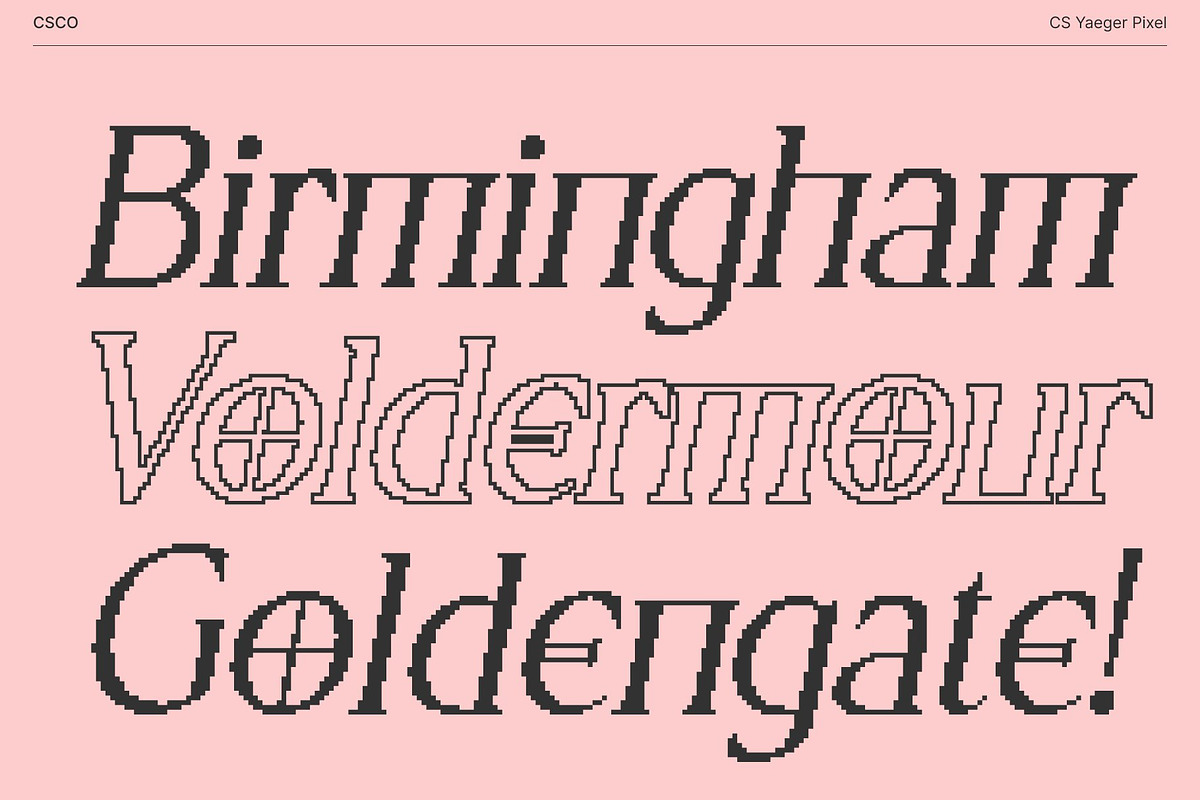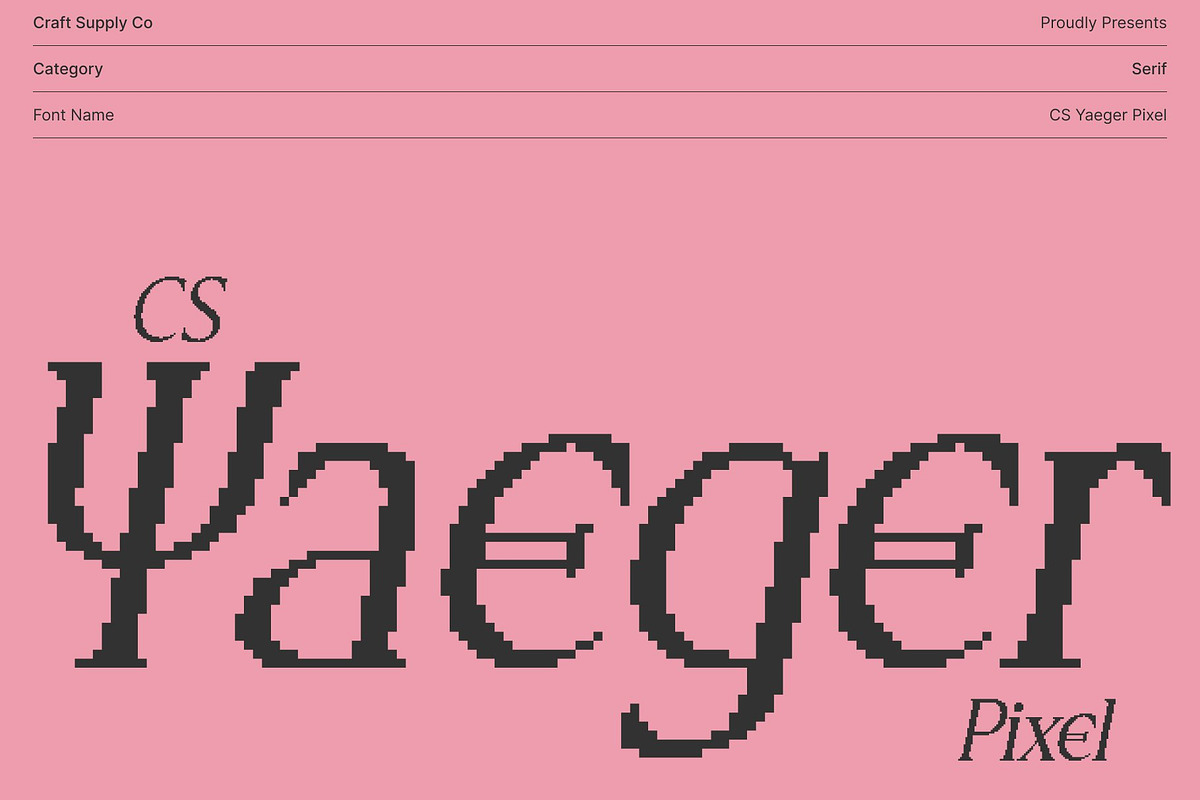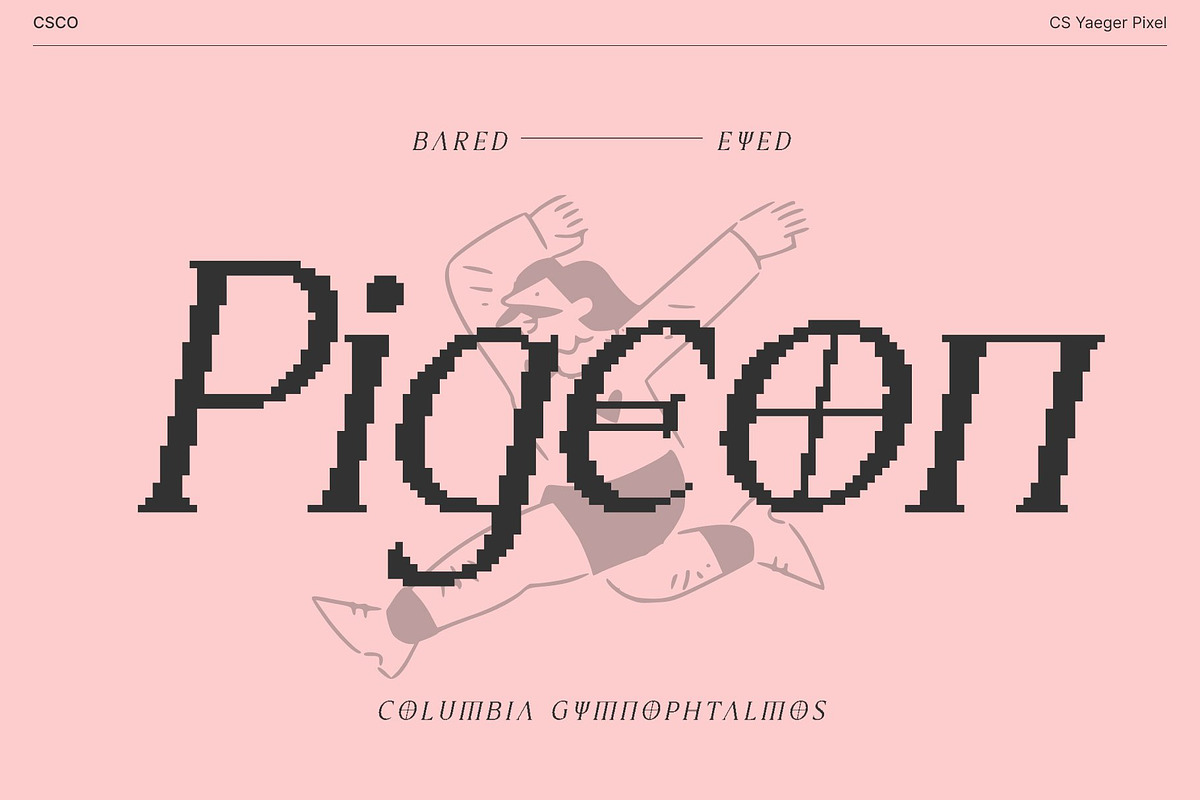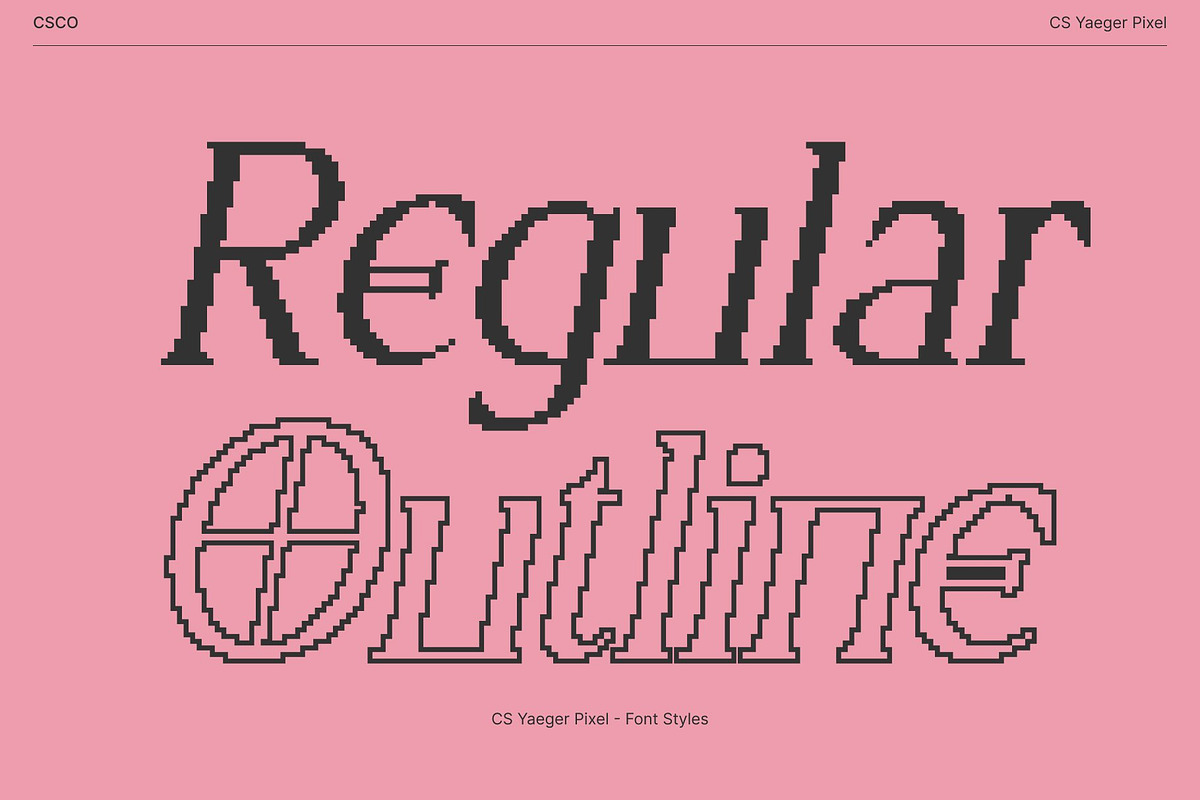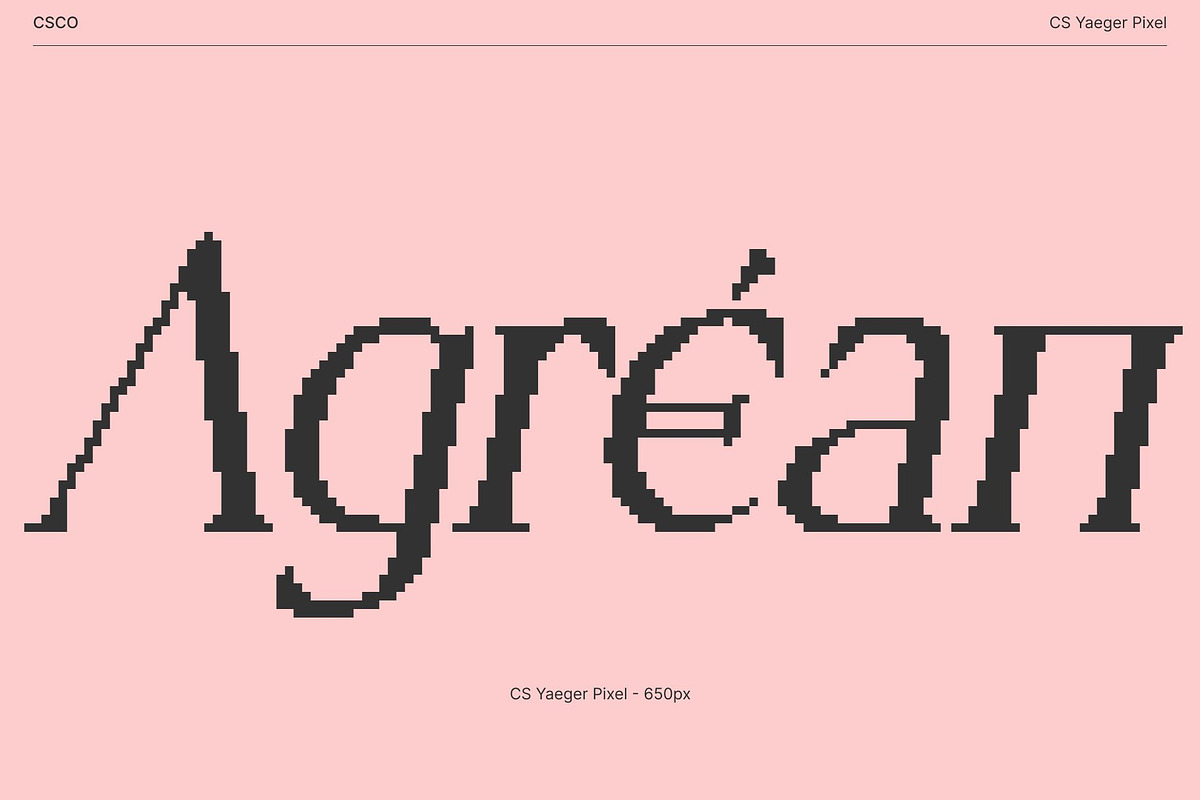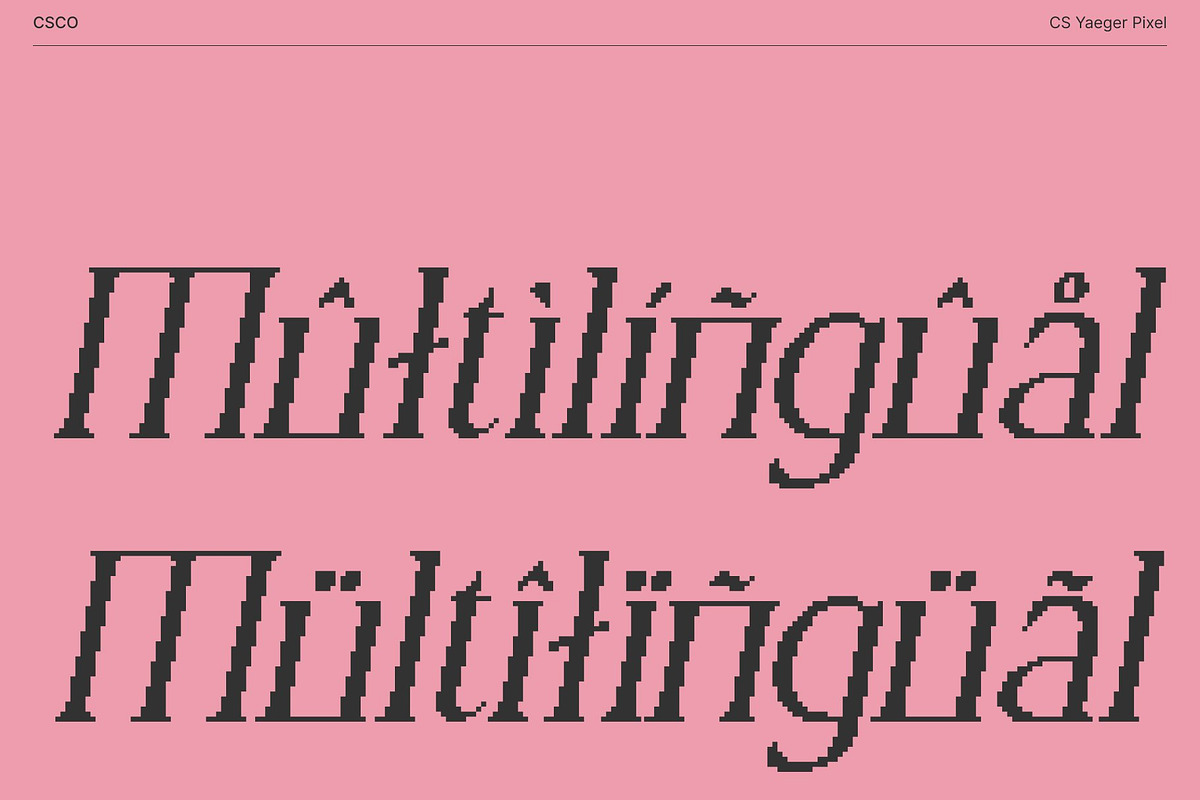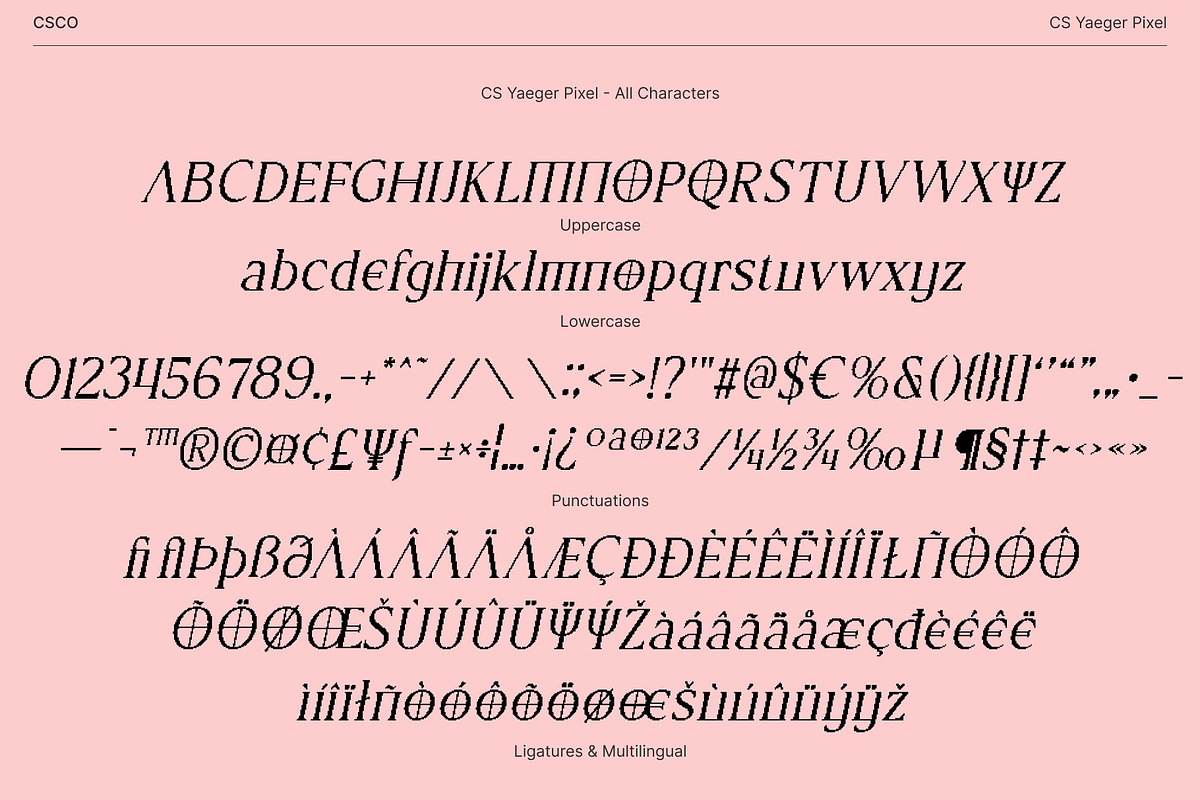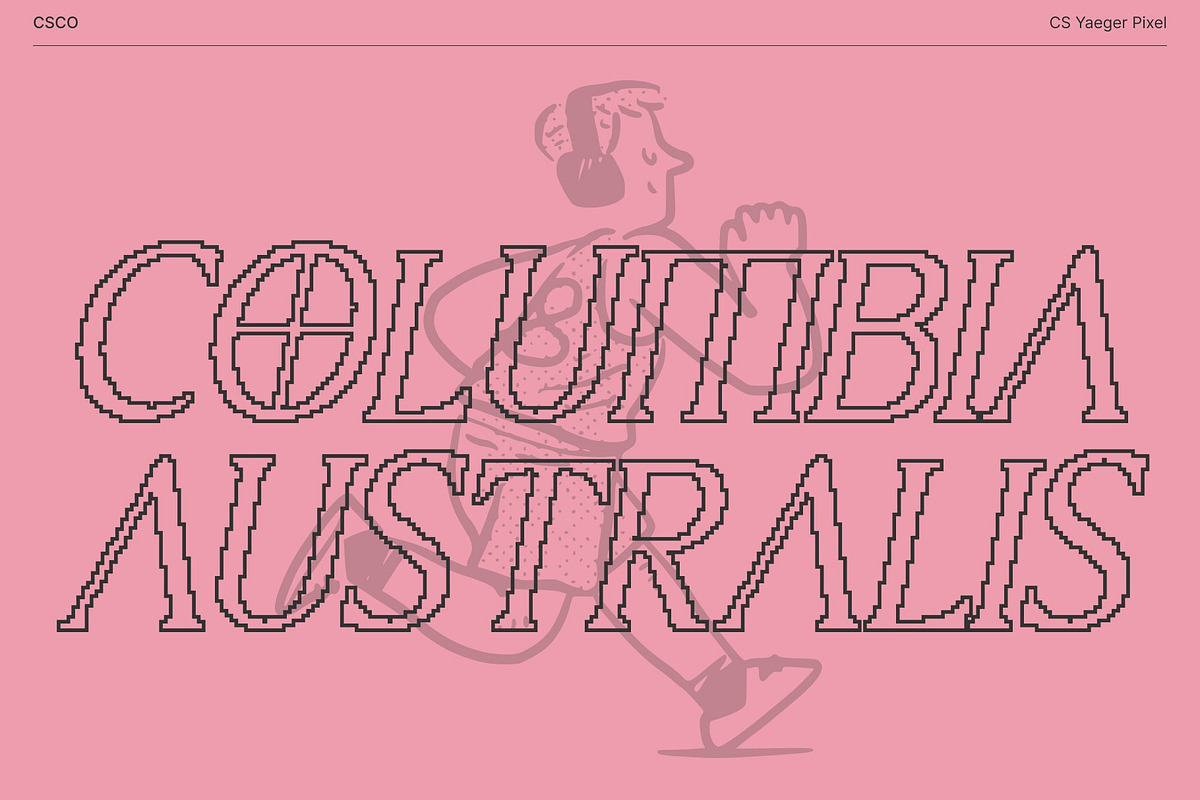
CS Yaeger Pixel
CS Yaeger Pixel – Classical Strength with Modern Refinement
Ancient Elegance with a Pixel-Defined Edge This is an elegant serif display font inspired by the sculptural beauty of ancient Greek letterforms, reinterpreted with refined pixel detailing. Its strong serifs and monumental proportions echo historical inscriptions, while subtle pixel precision introduces a contemporary digital sharpness. Each character embodies heritage, balance, and quiet authority.
Classical Structure with Modern Pixel Clarity Blending traditional craftsmanship with clean, structured geometry, this font transforms classical grandeur into a modern display statement. The sharp serifs and defined strokes are enhanced with crisp pixel nuances, creating a distinctive aesthetic that feels both timeless and technologically refined graceful yet historic yet forward-looking.
Perfect for Cultural and Luxury Design This font excels in luxury branding, editorial headlines, museum graphics, cultural identities, and premium packaging. Its dignified presence and structured pixel finish ensure strong readability while maintaining an elevated, intellectual tone that leaves a lasting impression.
A Dialogue Between Heritage and Innovation More than a typeface, represents a fusion of ancient artistry and modern digital refinement. Through balanced proportions, sculpted forms, and pixel-enhanced precision, it bridges tradition and innovation perfect for designers who seek to communicate strength, intelligence, and timeless sophistication with a contemporary edge.